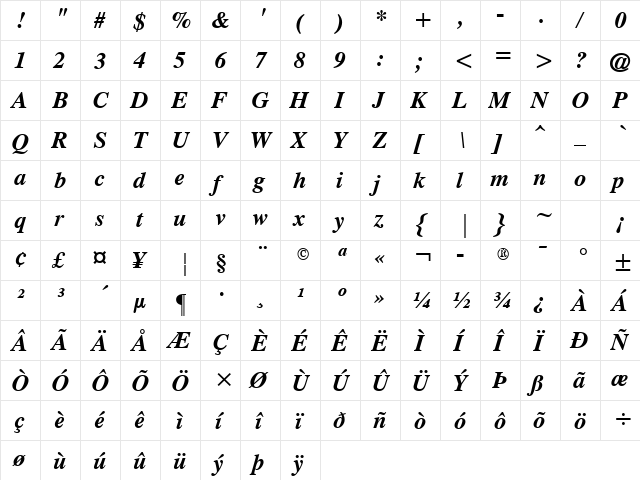
Times CG ATT Bold Italic
Design Context for Times CG ATT Typeface
Times CG ATT is a composed and adaptable typeface that performs quietly and consistently across a wide range of design contexts. The slanted form adds forward momentum and visual energy. Its bold stroke weight gives it real presence on the page.
Pro Tip: Use Times CG ATT for emphasis, pull quotes, and subheadings where its slanted energy can add rhythm to the layout.